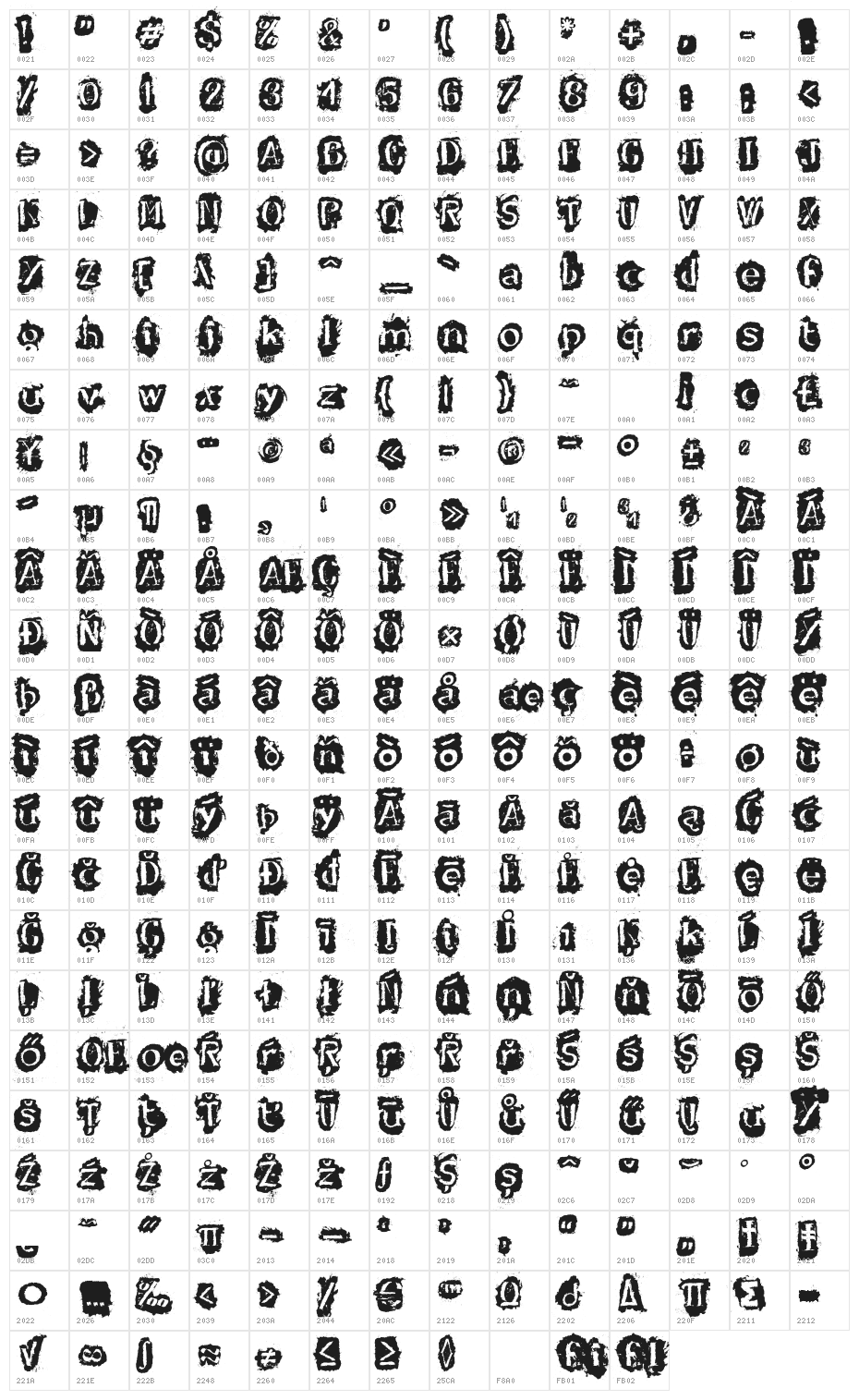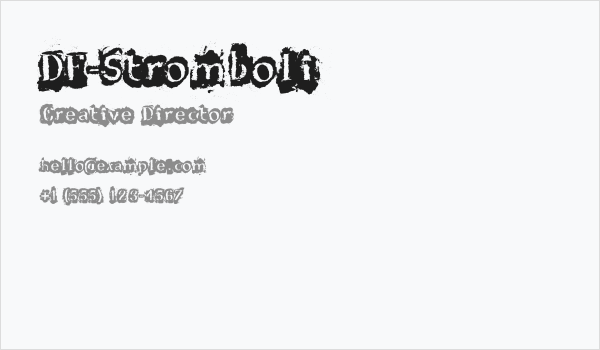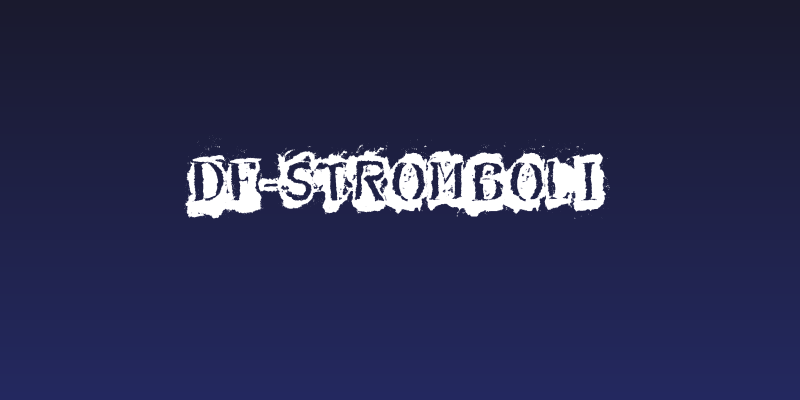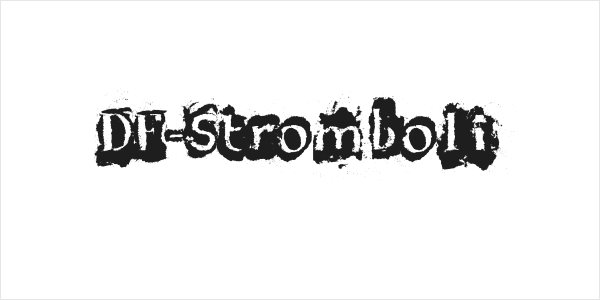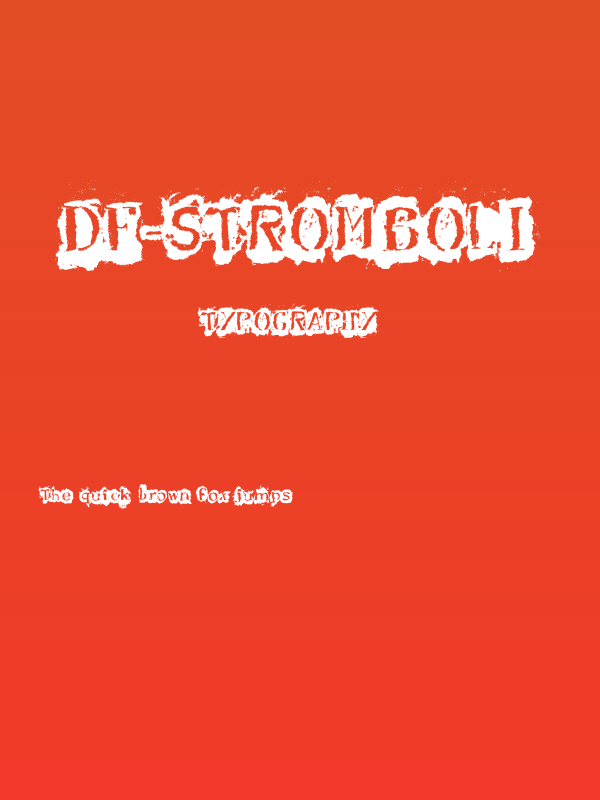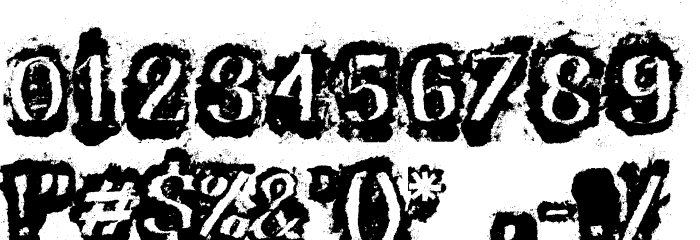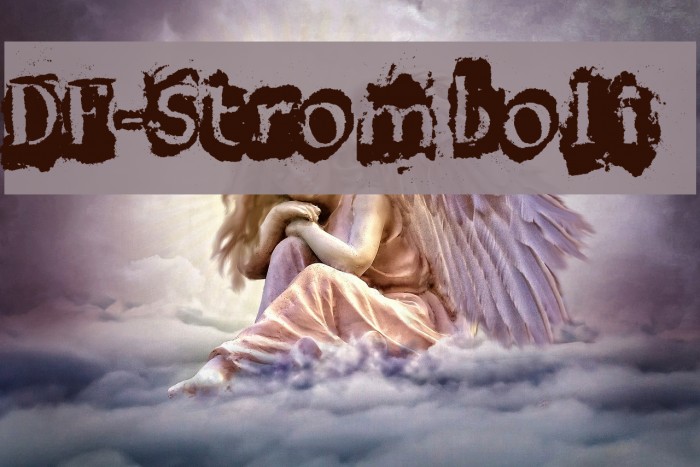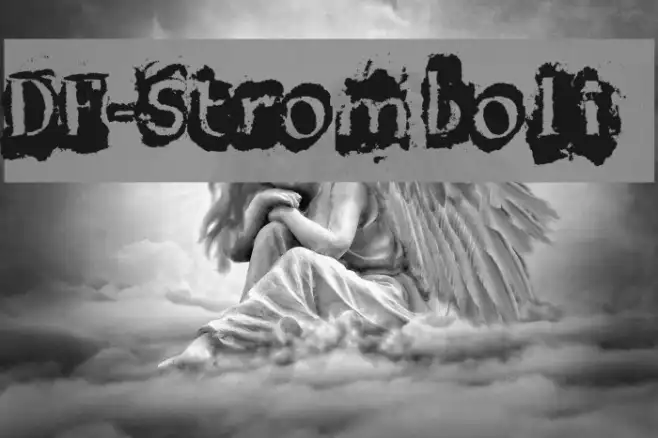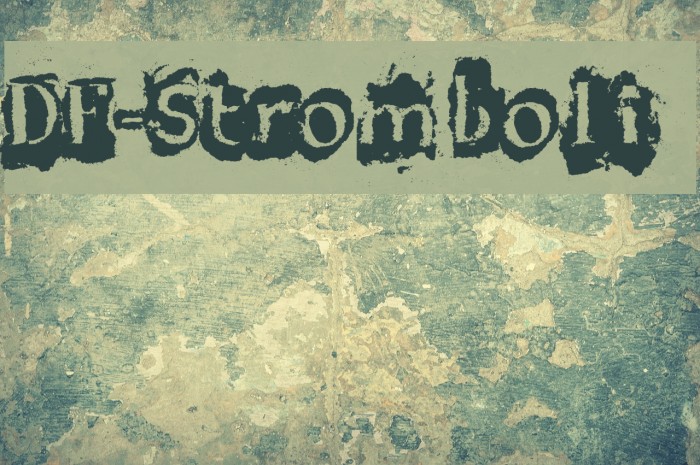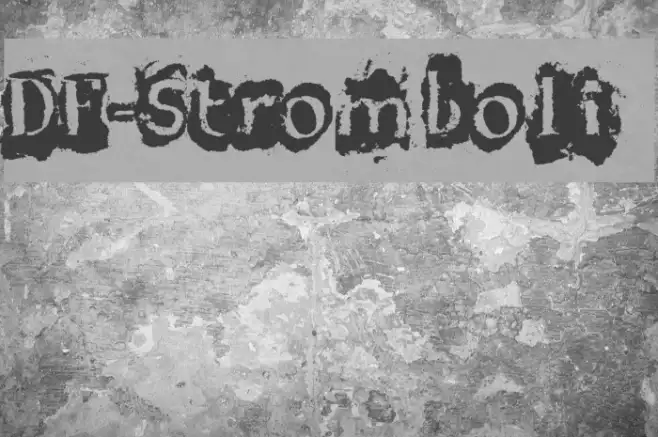
DF-Stromboli Font
DF-Stromboli Description
This font features a bold and distressed style, reminiscent of rugged textures and dynamic energy. Each character is heavily textured, giving it a grunge-like appearance that suggests movement and intensity. The uppercase and lowercase letters maintain a consistent weight, with rough edges and irregular forms that add to its unique character. Numbers and special characters follow the same design, ensuring a cohesive look across all elements. The font's boldness and high contrast make it stand out, ideal for projects that require a strong visual impact.
| Proposed Projects | Ideal for music album covers, posters, streetwear branding, and edgy graphic designs. |